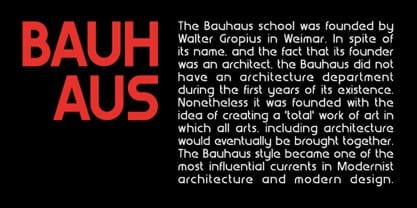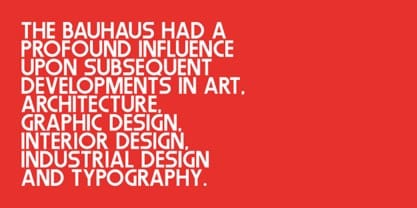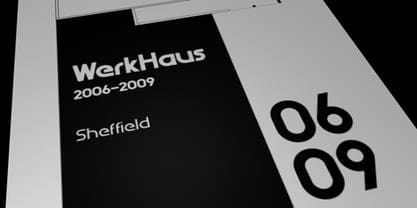
WerkHaus Font
WerkHaus Font, A minimal san serif typeface inspired by the work of Herbert Bayer and the Bauhaus Movement. Suitable for any design needs : logo, branding, modern advertising design, logos, poster quote, book / cover Title, editorial design, website / blog, card, t-shirts, and any hand-lettered needs.